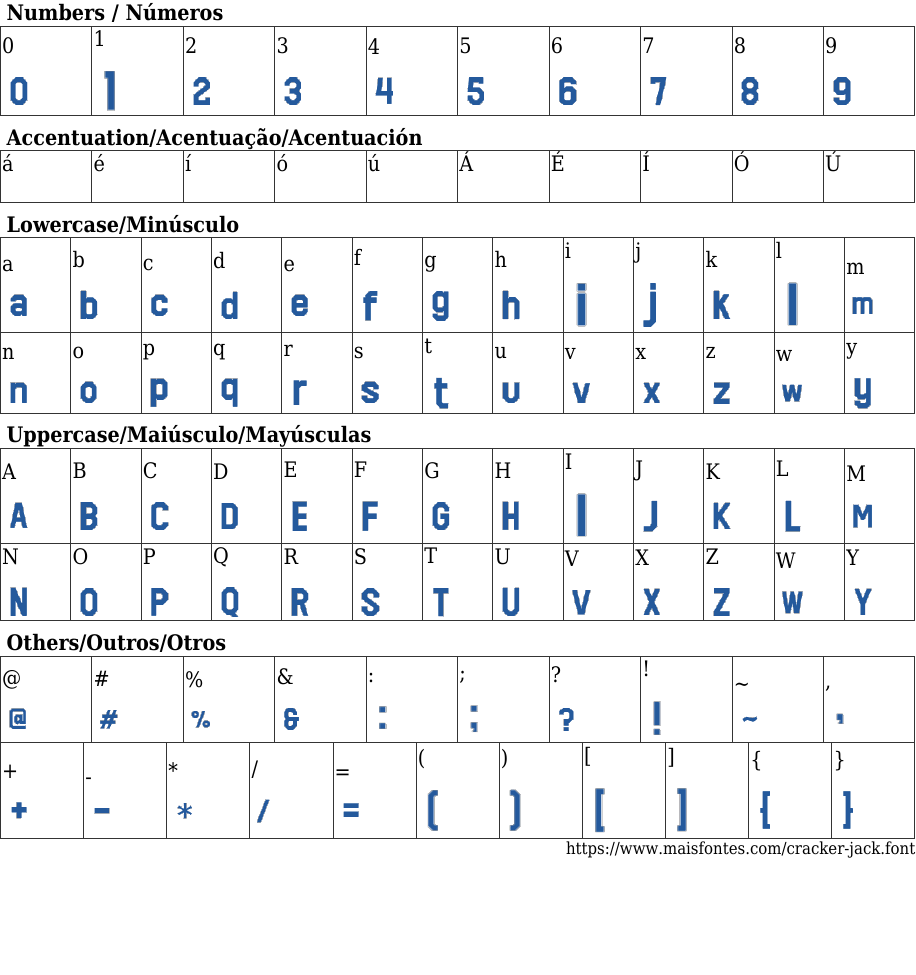
Cracker Jack Font Free Download . Cracker jack is a sports inspired typeface with strong geometric angles. Archive of freely downloadable fonts. Using a catalog of over 990k+ fonts (commercial or free) and our font finder ai, we are able to display over 60 fonts for every image uploaded. Thousands of designers (famous or not) use the image font detection system to find a font or similar free fonts from an image. Cracker jack font free download. Thousands of designers (famous or not) use the image font detection system to find a font or similar free fonts from an image. Browse by alphabetical listing, by style, by author or by popularity. Cracker jack is a sports inspired typeface with strong geometric angles. It comes in both upper and lower case, along with a generous glyph library containing over 100 characters.cracker. A great choice for highlighting your design elements. See how to download cracker jack for free! It comes in both upper and lower case, along with a generous glyph library containing over 100.
It comes in both upper and lower case, along with a generous glyph library containing over 100 characters.cracker. Thousands of designers (famous or not) use the image font detection system to find a font or similar free fonts from an image. Using a catalog of over 990k+ fonts (commercial or free) and our font finder ai, we are able to display over 60 fonts for every image uploaded. Cracker jack is a sports inspired typeface with strong geometric angles. Cracker jack is a sports inspired typeface with strong geometric angles. Browse by alphabetical listing, by style, by author or by popularity. A great choice for highlighting your design elements. Thousands of designers (famous or not) use the image font detection system to find a font or similar free fonts from an image. It comes in both upper and lower case, along with a generous glyph library containing over 100. See how to download cracker jack for free!
Cracker Jack Font Free Download It comes in both upper and lower case, along with a generous glyph library containing over 100 characters.cracker. Cracker jack is a sports inspired typeface with strong geometric angles. Using a catalog of over 990k+ fonts (commercial or free) and our font finder ai, we are able to display over 60 fonts for every image uploaded. Cracker jack font free download. It comes in both upper and lower case, along with a generous glyph library containing over 100. See how to download cracker jack for free! Archive of freely downloadable fonts. It comes in both upper and lower case, along with a generous glyph library containing over 100 characters.cracker. Thousands of designers (famous or not) use the image font detection system to find a font or similar free fonts from an image. Thousands of designers (famous or not) use the image font detection system to find a font or similar free fonts from an image. Browse by alphabetical listing, by style, by author or by popularity. A great choice for highlighting your design elements. Cracker jack is a sports inspired typeface with strong geometric angles.
Cracker Font Free & Premium Download Cracker Jack Font Free Download It comes in both upper and lower case, along with a generous glyph library containing over 100. Thousands of designers (famous or not) use the image font detection system to find a font or similar free fonts from an image. Browse by alphabetical listing, by style, by author or by popularity. It comes in both upper and lower case, along. Cracker Jack Font Free Download.
Cracker Jack Font Fontspring Cracker Jack Font Free Download See how to download cracker jack for free! Archive of freely downloadable fonts. Cracker jack is a sports inspired typeface with strong geometric angles. A great choice for highlighting your design elements. Browse by alphabetical listing, by style, by author or by popularity. Using a catalog of over 990k+ fonts (commercial or free) and our font finder ai, we are. Cracker Jack Font Free Download.
Cracker Jack Logo Png Free Transparent PNG Clipart Images Download Cracker Jack Font Free Download Archive of freely downloadable fonts. It comes in both upper and lower case, along with a generous glyph library containing over 100. Cracker jack font free download. Thousands of designers (famous or not) use the image font detection system to find a font or similar free fonts from an image. Using a catalog of over 990k+ fonts (commercial or free). Cracker Jack Font Free Download.
Cracker Jack clipart. Free download transparent .PNG Creazilla Cracker Jack Font Free Download It comes in both upper and lower case, along with a generous glyph library containing over 100. Thousands of designers (famous or not) use the image font detection system to find a font or similar free fonts from an image. It comes in both upper and lower case, along with a generous glyph library containing over 100 characters.cracker. See how. Cracker Jack Font Free Download.
Cracker Jack Sans Serif Fonts on Creative Market Cracker Jack Font Free Download Archive of freely downloadable fonts. Cracker jack font free download. It comes in both upper and lower case, along with a generous glyph library containing over 100 characters.cracker. Using a catalog of over 990k+ fonts (commercial or free) and our font finder ai, we are able to display over 60 fonts for every image uploaded. Thousands of designers (famous or. Cracker Jack Font Free Download.
Cracker Jack Logo Vector (.Ai .PNG .SVG .EPS Free Download) Cracker Jack Font Free Download It comes in both upper and lower case, along with a generous glyph library containing over 100 characters.cracker. Thousands of designers (famous or not) use the image font detection system to find a font or similar free fonts from an image. Thousands of designers (famous or not) use the image font detection system to find a font or similar free. Cracker Jack Font Free Download.
Cracker Jack Font Free Download Cracker jack font free download. Browse by alphabetical listing, by style, by author or by popularity. See how to download cracker jack for free! Thousands of designers (famous or not) use the image font detection system to find a font or similar free fonts from an image. A great choice for highlighting your design elements. Archive of freely downloadable fonts.. Cracker Jack Font Free Download.
Cracker Jack Font Fontspring Cracker Jack Font Free Download Thousands of designers (famous or not) use the image font detection system to find a font or similar free fonts from an image. Archive of freely downloadable fonts. Cracker jack is a sports inspired typeface with strong geometric angles. Browse by alphabetical listing, by style, by author or by popularity. Using a catalog of over 990k+ fonts (commercial or free). Cracker Jack Font Free Download.
Cracker Jack Font Free Download Cracker jack is a sports inspired typeface with strong geometric angles. It comes in both upper and lower case, along with a generous glyph library containing over 100. Cracker jack is a sports inspired typeface with strong geometric angles. Cracker jack font free download. Thousands of designers (famous or not) use the image font detection system to find a font. Cracker Jack Font Free Download.